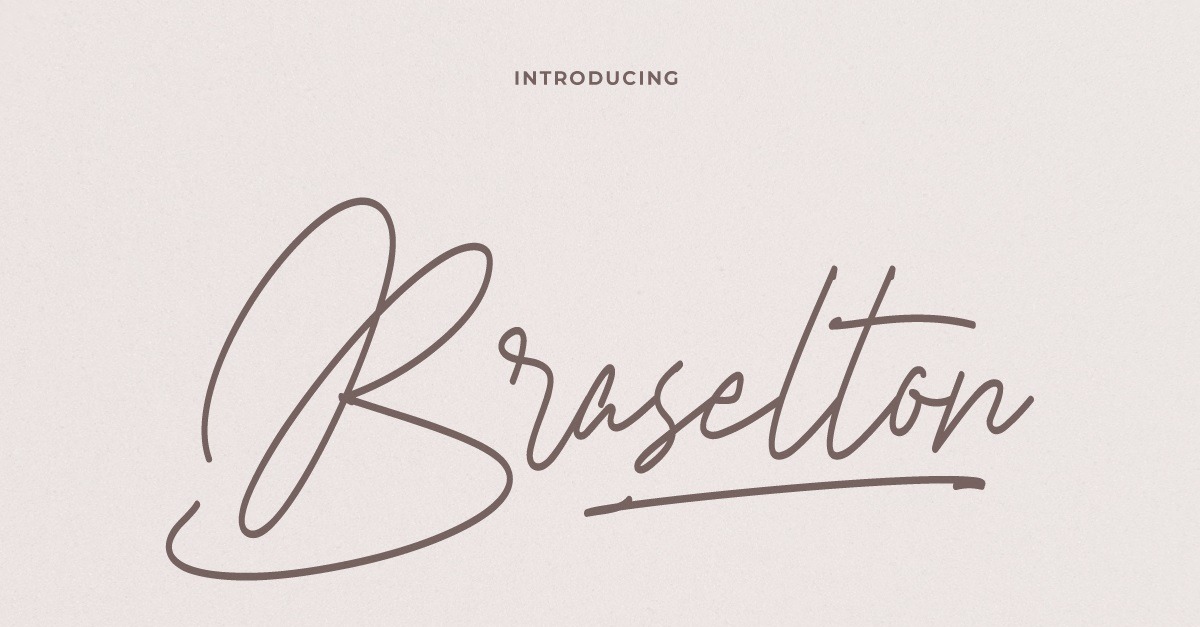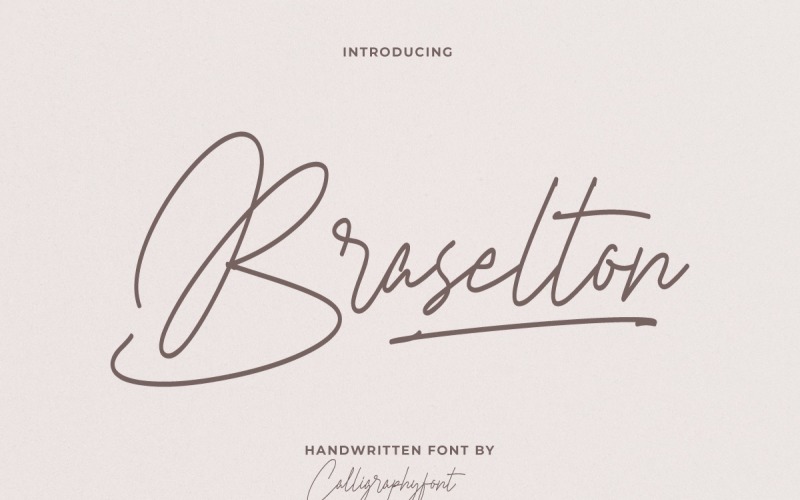
Braselton Monoline Handwriting Font
Braselton is a stunning monoline pen handwriting font. It has unique a flawless looks that are modern, elegant, luxurious, professional and sophisticated style. The font will be great for wedding, photographer, artist, architect, sales, beauty products, etc